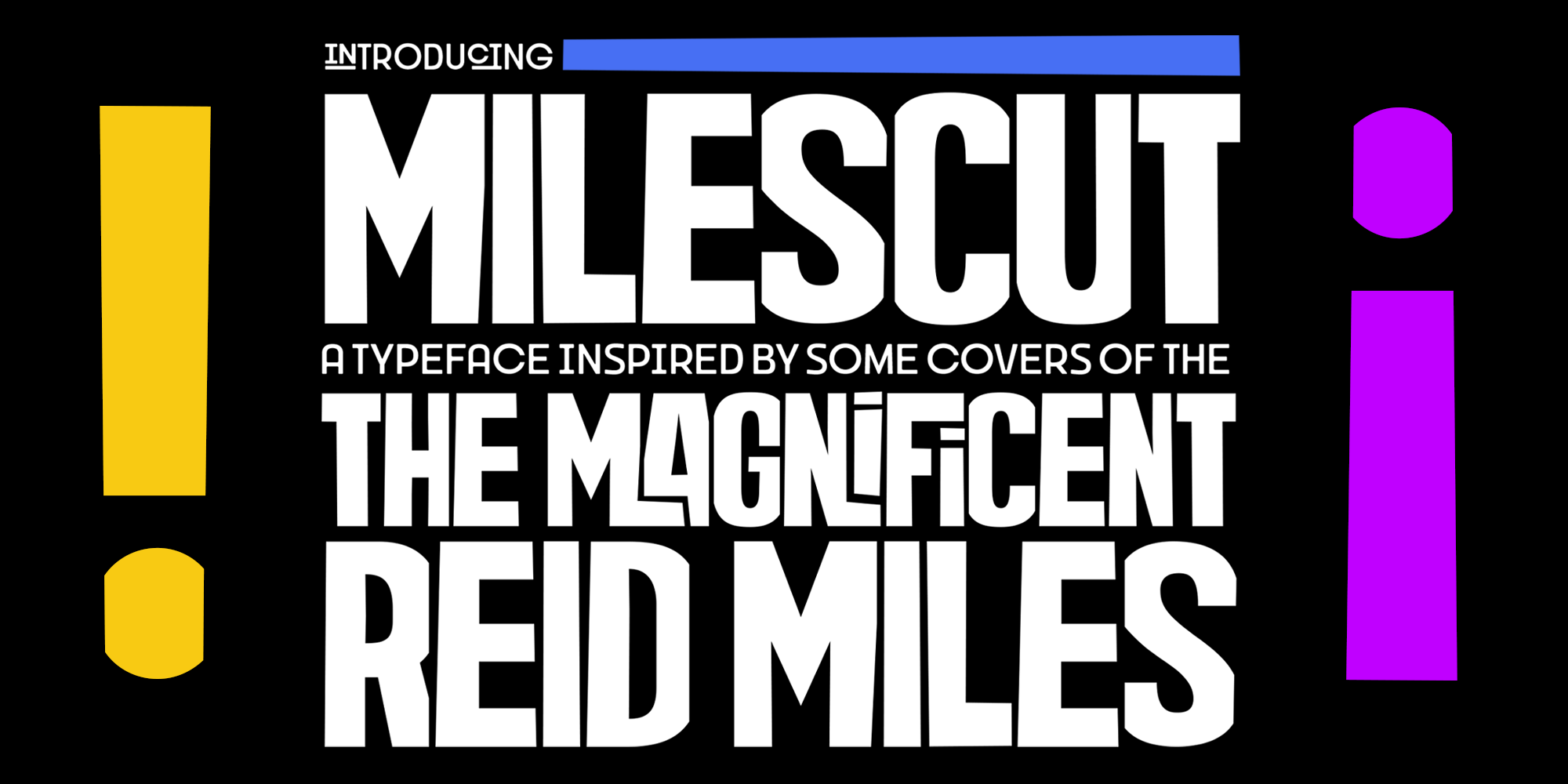
Milescut Font is a sleek and exceptionally dynamic typeface, perfectly suited for projects that demand a sharp, modern edge and a sense of precision or forward momentum. Imagine it powering the branding for a cutting-edge automotive company, adding a high-tech and efficient feel to innovative software interfaces, or making an impactful statement on posters for tech conferences and gaming events. It's also an excellent choice for crafting memorable logos that convey speed and accuracy, designing crisp and clear infographics, or bringing a structured, contemporary vibe to digital advertising and sports media. If you're looking for a font that truly stands out with its clean lines and compelling presence, Milescut Font is an outstanding selection.
What makes Milescut Font so exciting? It’s its unique blend of geometric clarity and subtle, almost aerodynamic detailing, which gives it a distinctive and powerful visual identity. This font often features sharp angles, precise cuts, and a streamlined appearance that evokes a sense of efficiency and controlled speed. Despite its often minimalist structure, Milescut Font is designed to maintain excellent readability across various sizes and mediums, ensuring your message is communicated with both impact and absolute clarity. Designers will appreciate its versatile application in creating designs that are both visually assertive and highly functional, making it a go-to choice for projects that need to convey innovation, progress, and a sharp, contemporary edge.
The Milescut Font family is typically designed with a comprehensive range of weights and styles to provide maximum flexibility for designers. You can generally expect to find numerous variations such as Thin, Light, Regular, Medium, Bold, and possibly an ExtraBold or Black weight, often accompanied by matching italic versions for each. This extensive family ensures that Milescut Font can be used to create sophisticated typographic hierarchies, maintain consistent branding across diverse mediums, and offer flexible design solutions for both print and digital environments. Discover the unwavering precision and contemporary style of Milescut Font Free Download for your next design endeavor.